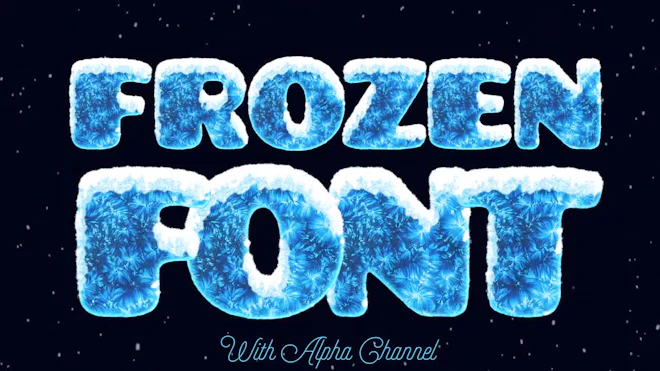
This stock motion graphics video pack includes 36 different clips of winter typefaces on a transparent alpha channel. Pack includes 26 letters and 10 numbers.